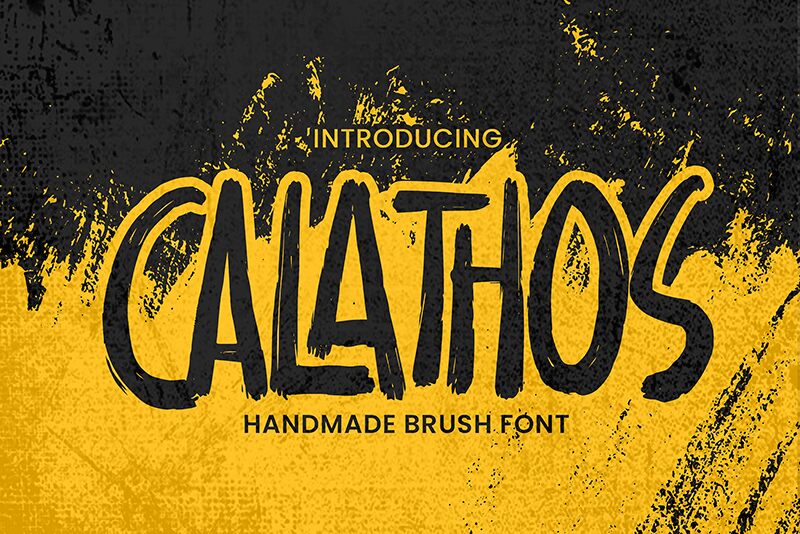
Calathos
Calathos font designed by Gassstype is a casual script typeface with the appearance of hand-drawn brush strokes. The free font features uneven letters, and informal style that presents an overall unique look. With all capital condensed characters and multiple swashes for each, this modern display typeface comes equipped with everything you need to write whole original paragraphs.
Use the stunning typeface in simple logos, general branding purposes, product labels and packaging, magazine headers, book covers and newspaper headlines or section titles. You can also make good use of it while working on social media posts related to your business or blog.